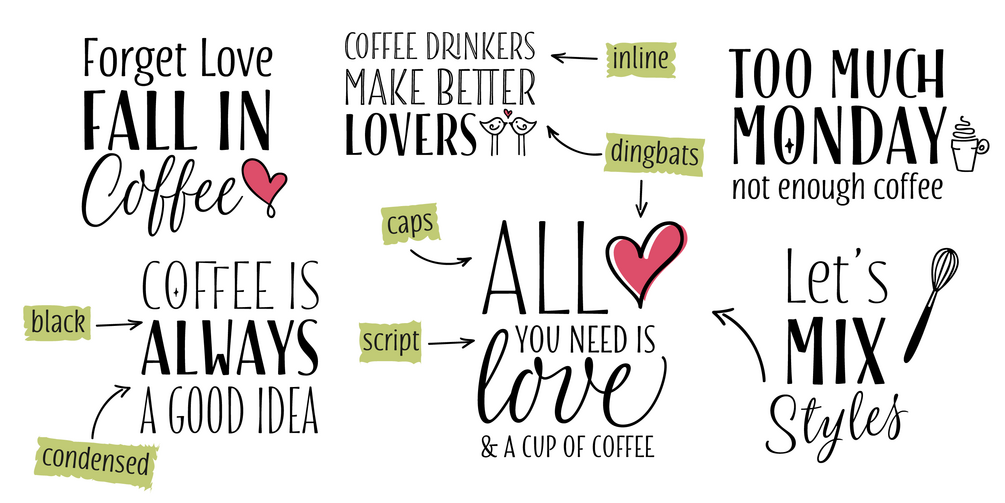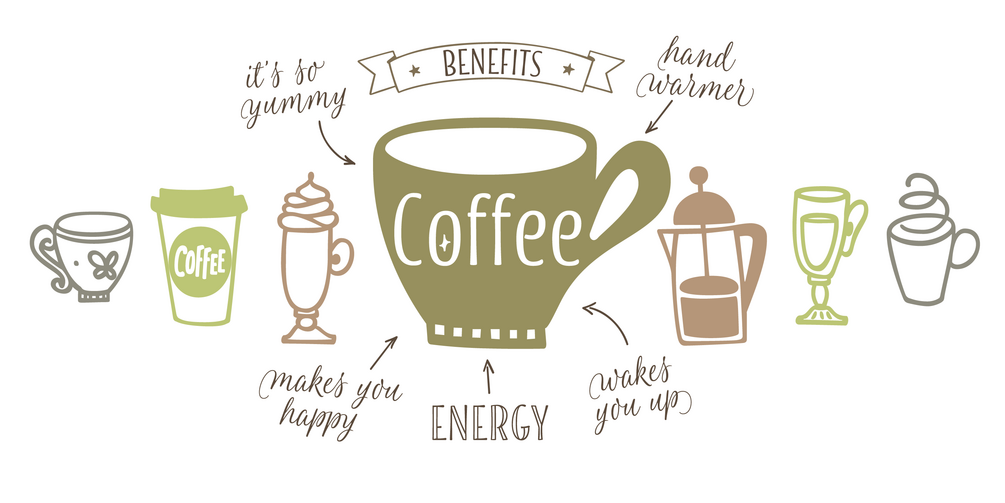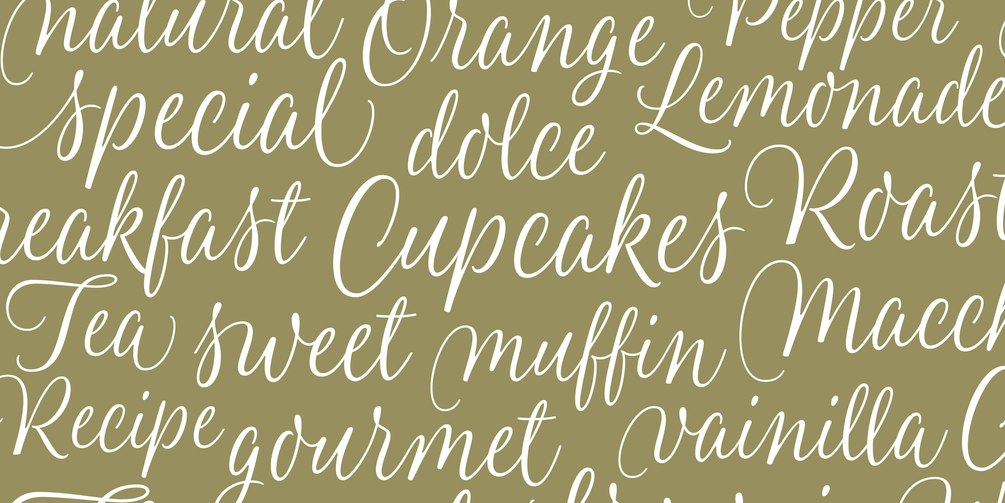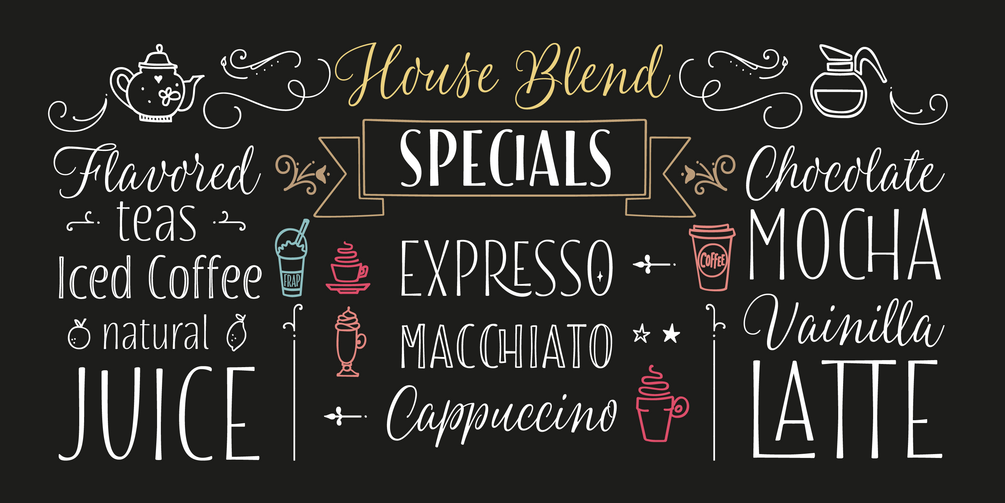
Blend
The Family Pack consists of 21 fonts: a bouncing informal Script; a wonderful set of condensed romans and two subfamilies of condensed Caps, both with stackable Inlines; playful Dingbats and Ornaments.